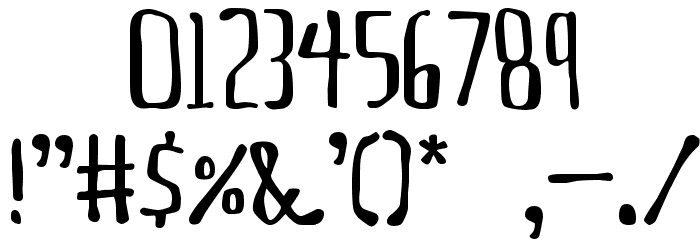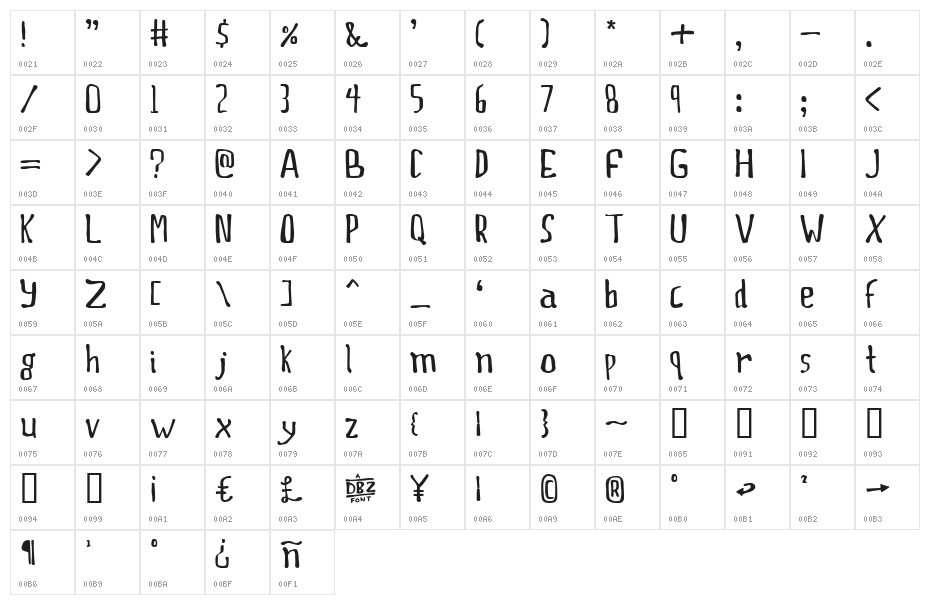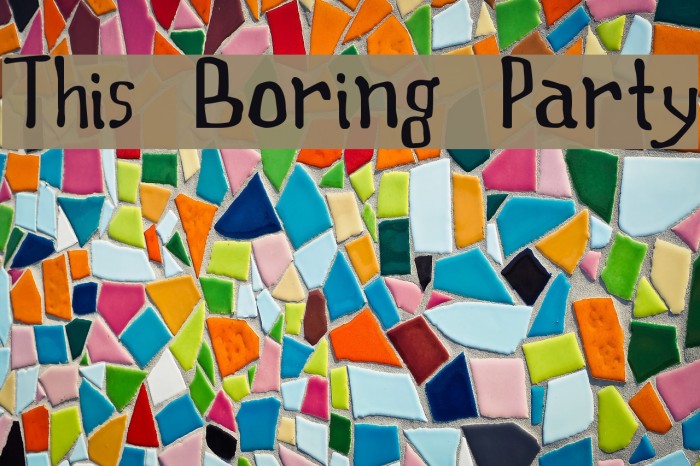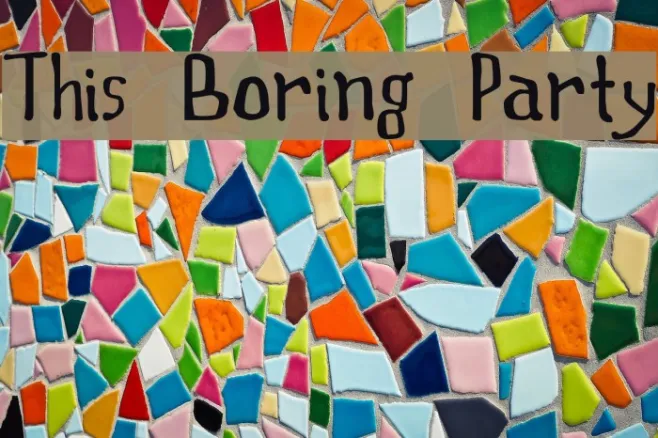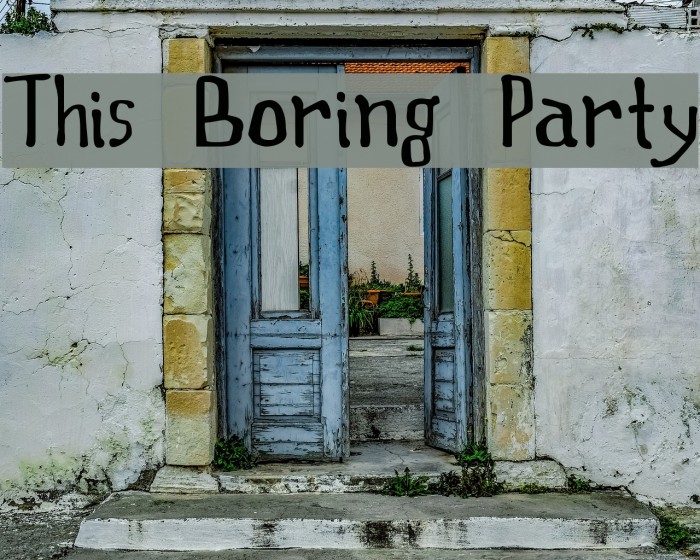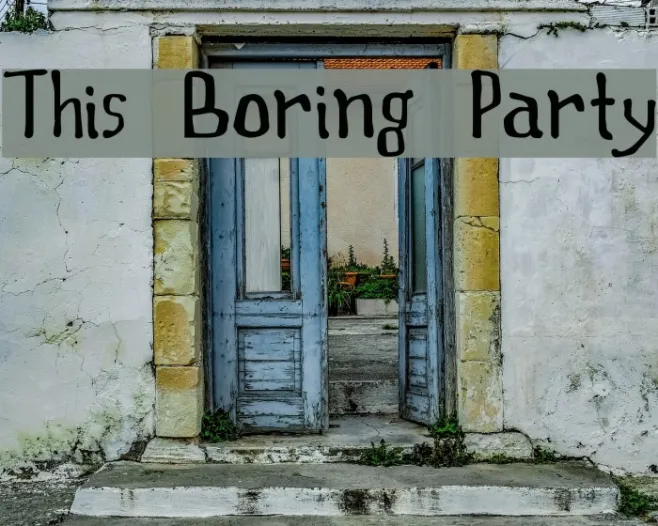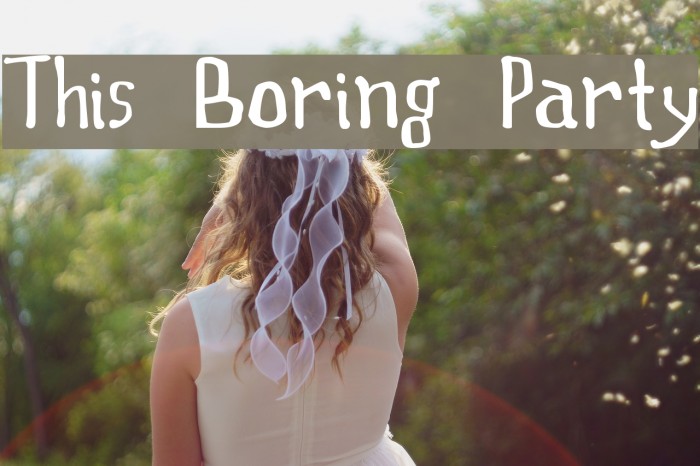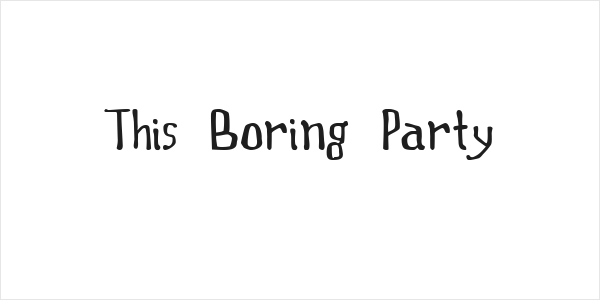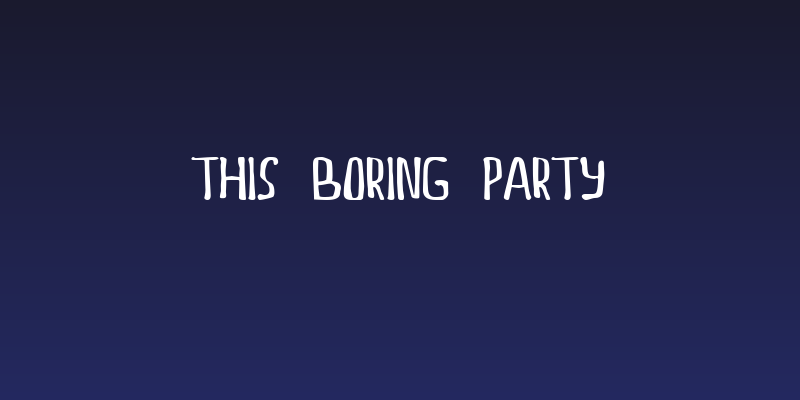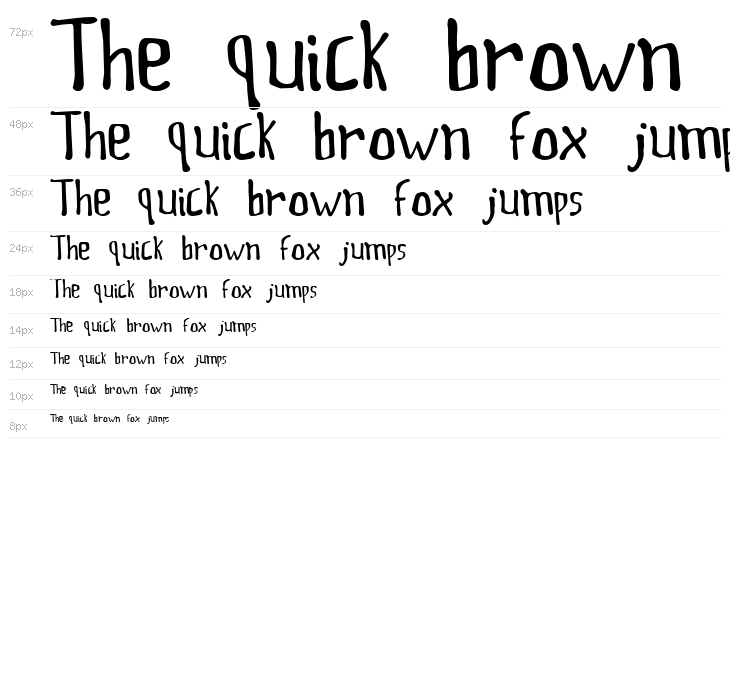
This Boring Party Font
This Boring Party Description
This font features a playful and quirky style with irregular, hand-drawn strokes that give it a casual and informal appearance. The letters are slightly uneven, adding to the whimsical charm. The uppercase and lowercase letters maintain a consistent style, with rounded edges and a slightly narrow form. The numerals and special characters follow the same playful design, making the font suitable for creative and fun projects. Its unique character makes it stand out, perfect for designs that require a touch of personality and flair.
| Proposed Projects | Ideal for children's books, greeting cards, playful branding, and creative posters. |